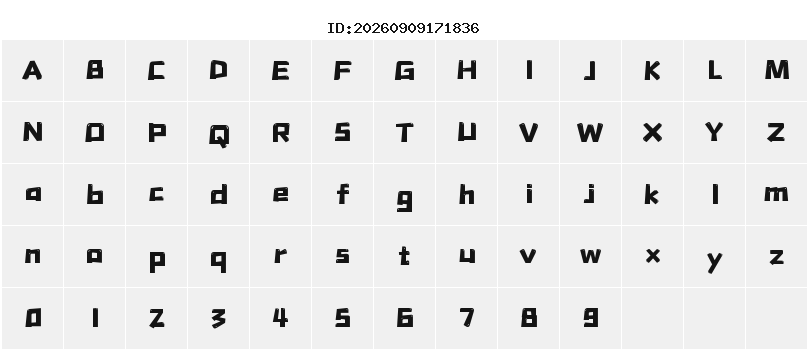
尔雅果冻体 Preview
• Font Name: 尔雅果冻体
About 尔雅果冻体.ttf
尔雅果冻体.ttf is a modern, elegant sans-serif font designed for ultimate readability and visual harmony. Perfect for branding, headlines, web design, and print materials.